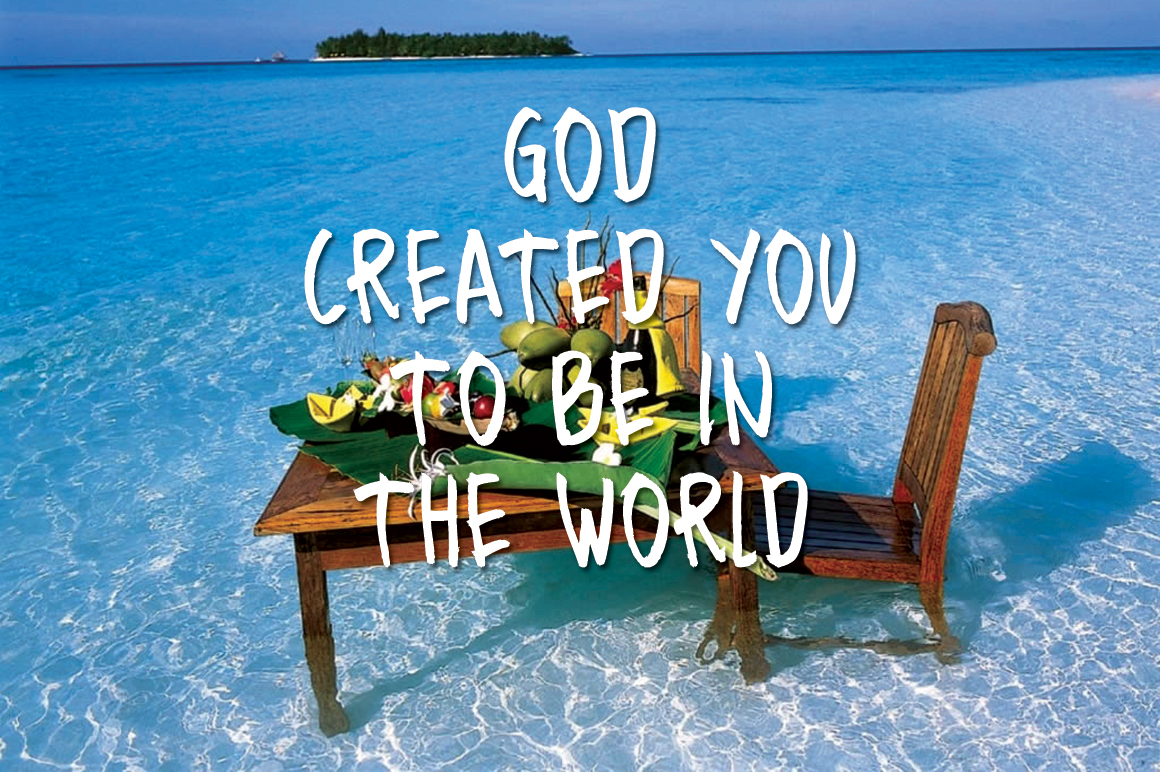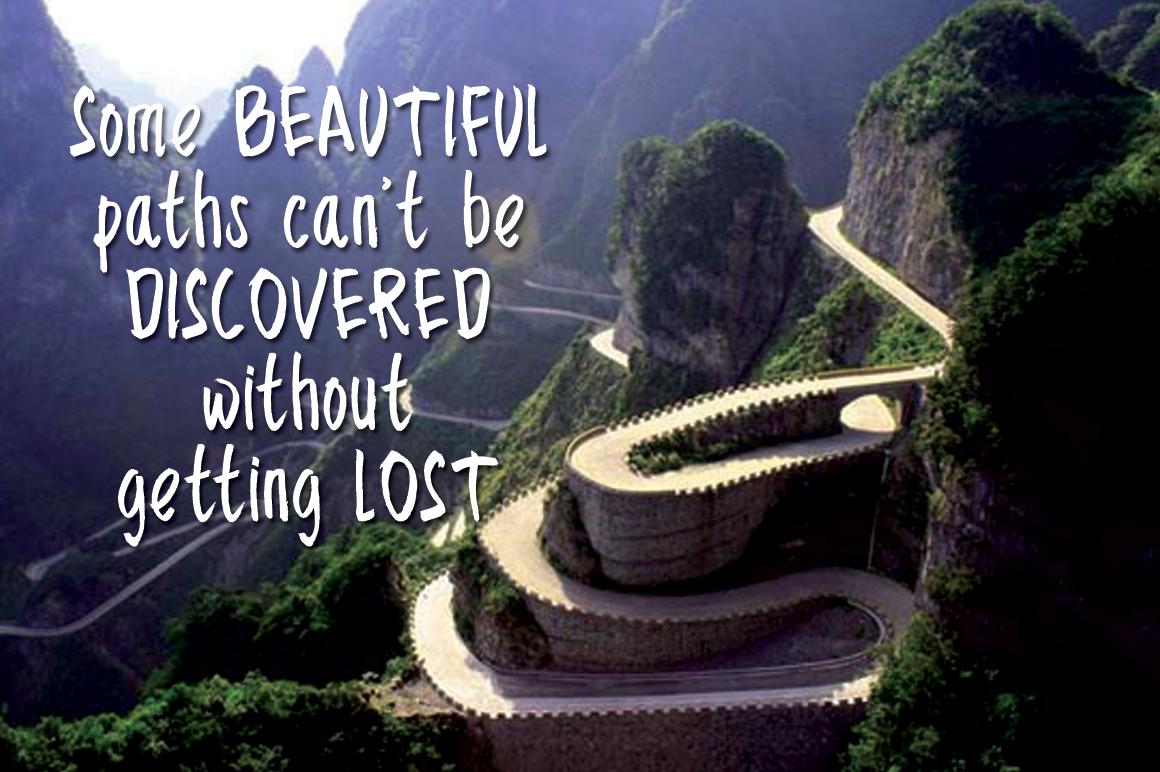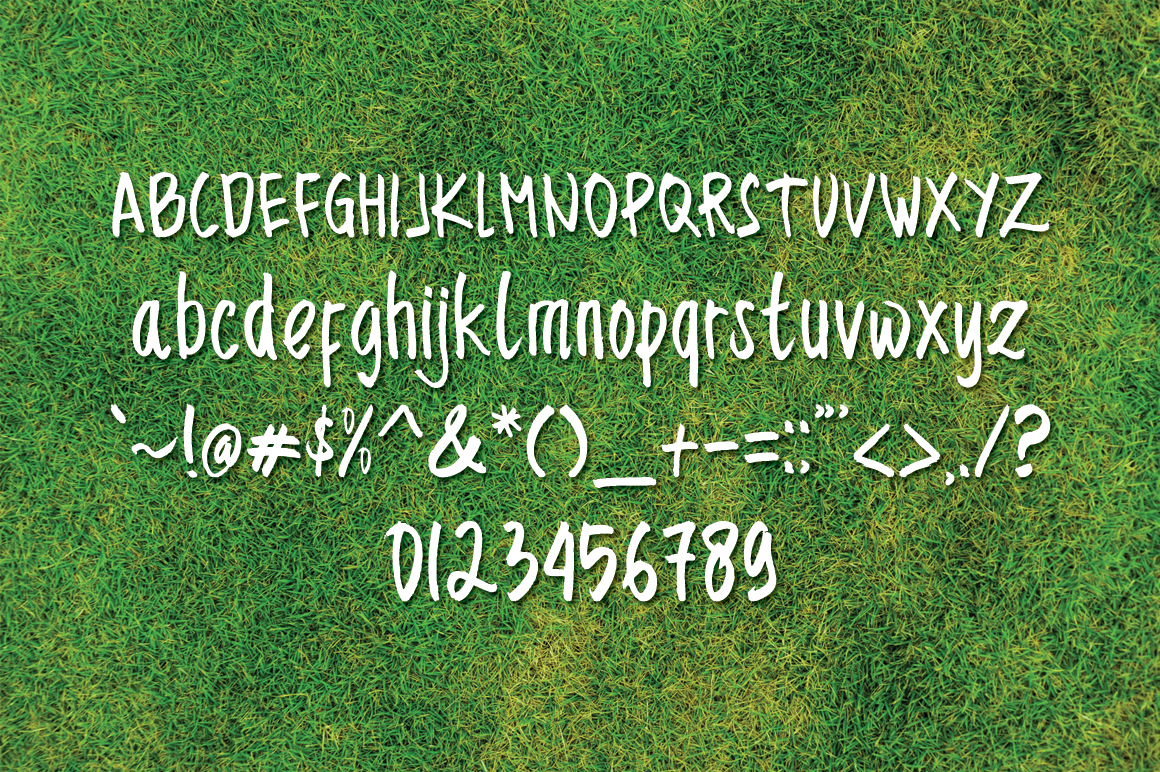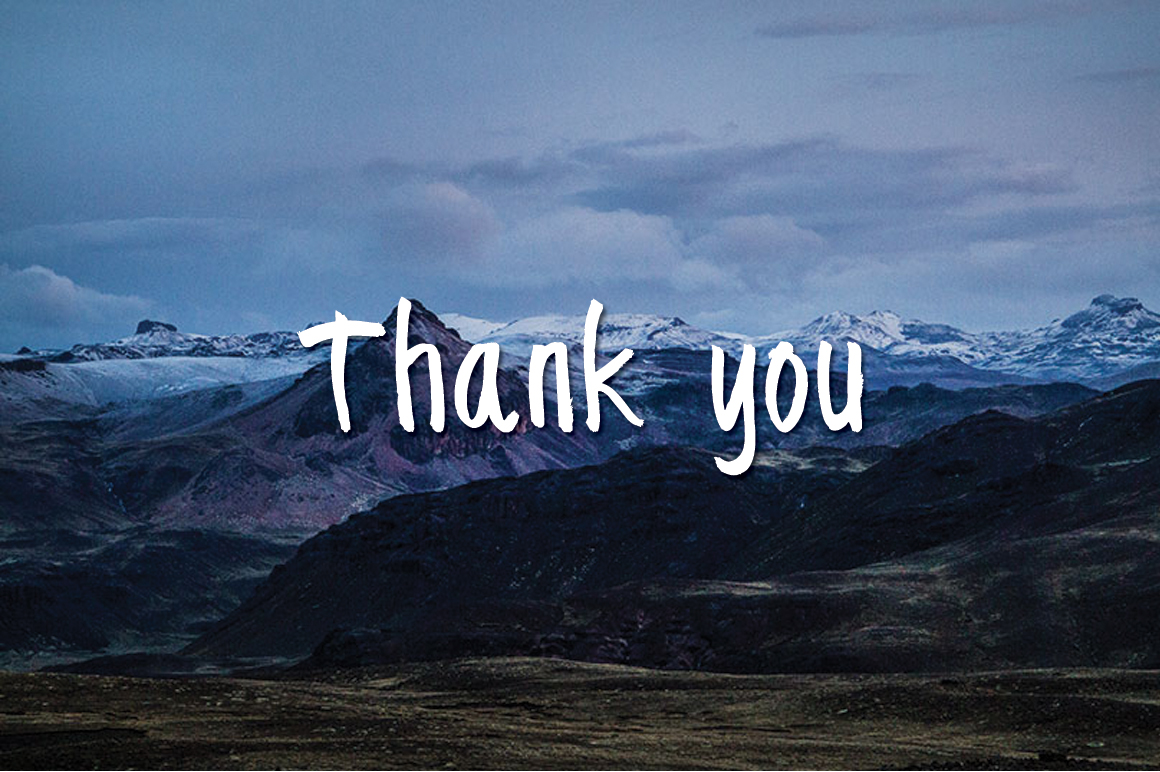
Introduction to Sencillo Font
Have you ever been stuck in the middle of a creative project, desperately searching for the perfect font to bring your vision to life? We’ve all been there. It’s a frustrating feeling, but one that can be alleviated with the right design resource. For designers looking for a high-quality, hand-drawn font that’s both elegant and versatile, Sencillo Font is a game-changer.
Created by the talented team at Atjcloth Studio, Sencillo Font is a beautiful, hand-drawn font that’s perfect for a wide range of creative projects. With its transparent background, this font is incredibly versatile and can be used for both digital and print designs. And the best part? It’s available for free download, making it an invaluable resource for designers of all levels.
Key Features of Sencillo Font
- High-quality design: Sencillo Font is a professional and clean design resource ideal for various creative projects.
- Transparent background: This font features a transparent background, making it easy to use on any design or image.
- Unique characteristics: This font features a modern and minimalist design, making it perfect for creating visually appealing and creative content.
- Easy to use: Sencillo Font is designed to be user-friendly, with a simple and intuitive design that makes it easy to use in various creative projects.
Honest Review: Sencillo Font
I recently had the opportunity to work with the Sencillo Font on a creative project and I must say, it was a great experience. The font has a very clean and minimalist design that makes it perfect for a wide range of applications.
- What works well: ✨ High-quality vector format, easy to customize, and a transparent background that makes it easy to use on different backgrounds.
- What works well: ✨ Great for body text, headings, and even logos, the Sencillo Font is a versatile design resource.
While the Sencillo Font is an excellent addition to any designer’s toolkit, I did encounter a few limitations.
- Limitations: ⚠️ Limited language support, which may be a concern for designers working on projects that require multiple languages.
- Limitations: ⚠️ The font may not be as suitable for more complex or ornate designs, as it has a very simple and minimalist aesthetic.
Overall, I’m very impressed with the Sencillo Font and would highly recommend it to designers looking for a high-quality, free design resource. With a bit of creativity, this font can be used to create some amazing designs, and its transparent background makes it easy to use on any background.